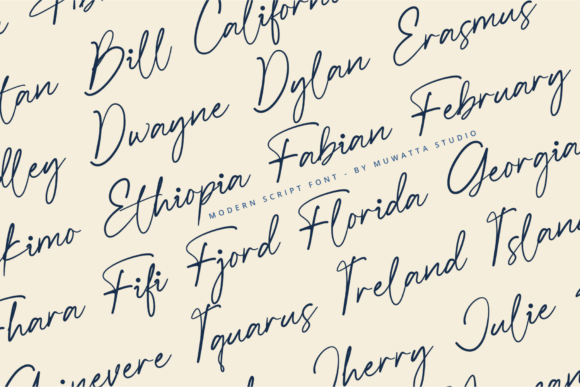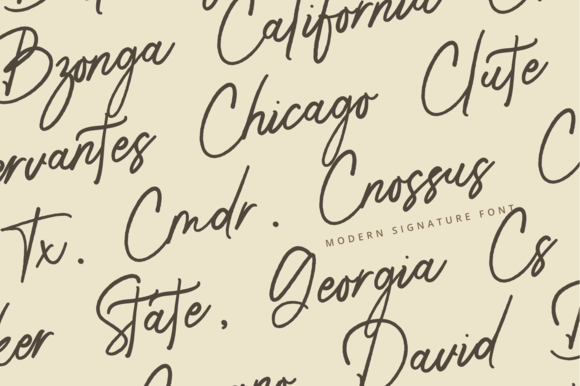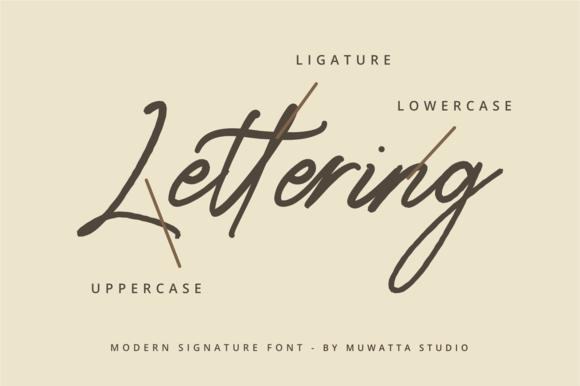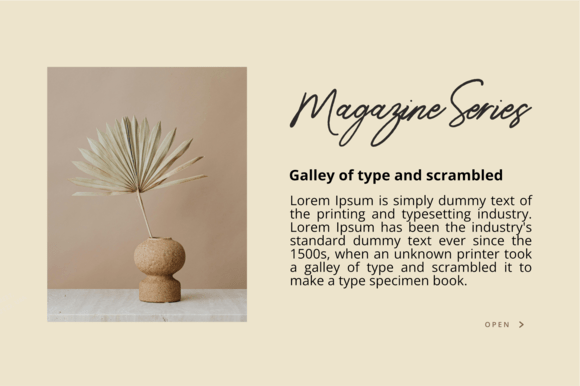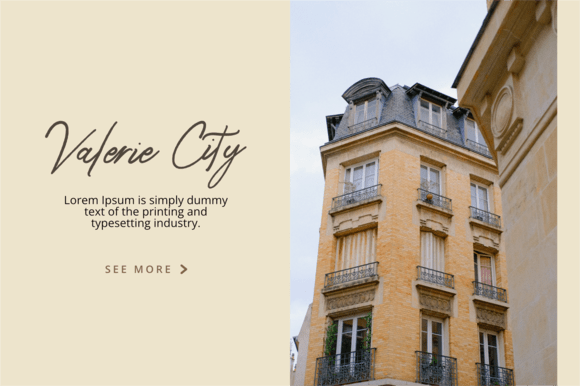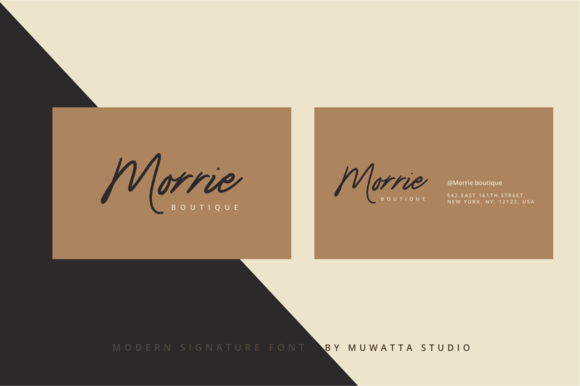
The Elusive Font: A Designer’s Quest for Elegance
Have you ever been in the middle of a design project, and suddenly, you’re stuck on finding the perfect font? I certainly have. It was a typical Wednesday afternoon when I was working on a branding project for a boutique hotel. My client wanted a font that exuded elegance, sophistication, and a touch of warmth. I scoured the internet, tried out countless fonts, but nothing seemed to fit the bill. That was until I stumbled upon Eiffel, a naturally fluid script font that has since become my go-to for projects that require a personal touch.
Introducing Eiffel: A Font that Speaks to You
Eiffel is more than just a font; it’s a reflection of casual handwriting’s elegance and refinement. Each light, free-flowing stroke is brimming with personality, making it perfect for designers, crafters, and creative hobbyists looking to add a soothing personal touch to their projects. With Eiffel, you can effortlessly impart a warm and familiar feel that’s quintessentially charming.
An Honest Review: The Good and the Quirky
What I Love About Eiffel ✨
- ✅ Fluid and natural strokes that mimic handwriting
- ✅ Wide range of applications, from branding to invitations
- ✅ Extensive OpenType features, including glyphs and stylistic alternates
- ⚠️ Limited use of uppercase letters, which can be a bit restrictive for certain projects
- ⚠️ Some users may find the font too fluid or cursive for their taste
Similar Fonts or Alternatives: A Quick Guide
If you love Eiffel, you might also enjoy:
- Lobster: A elegant, cursive script font perfect for formal events and luxury branding
- Pacifico: A beautiful, modern script font ideal for creative projects and social media graphics
- Great Vibes: A fun, energetic script font great for headlines and titles
- Carolyna Pro: A sophisticated, refined script font suitable for high-end branding and editorial projects
Eiffel’s story begins with a passion for elegant handwriting and a desire to create a font that captures its essence. The designer, inspired by the iconic Eiffel Tower, aimed to craft a font that’s both refined and approachable. Through countless hours of research and design, Eiffel was born – a font that embodies the perfect blend of sophistication and warmth.
| Font Name | Eiffel Font |
| Author | Muwatta Studio |
Q: What makes Eiffel unique?
A: Eiffel’s fluid, natural strokes and extensive OpenType features make it a standout font for designers and crafters.
Q: Is Eiffel suitable for body text?
A: While Eiffel is highly legible, it’s best suited for headlines, titles, and short paragraphs. For longer body text, a serif font might be more suitable.